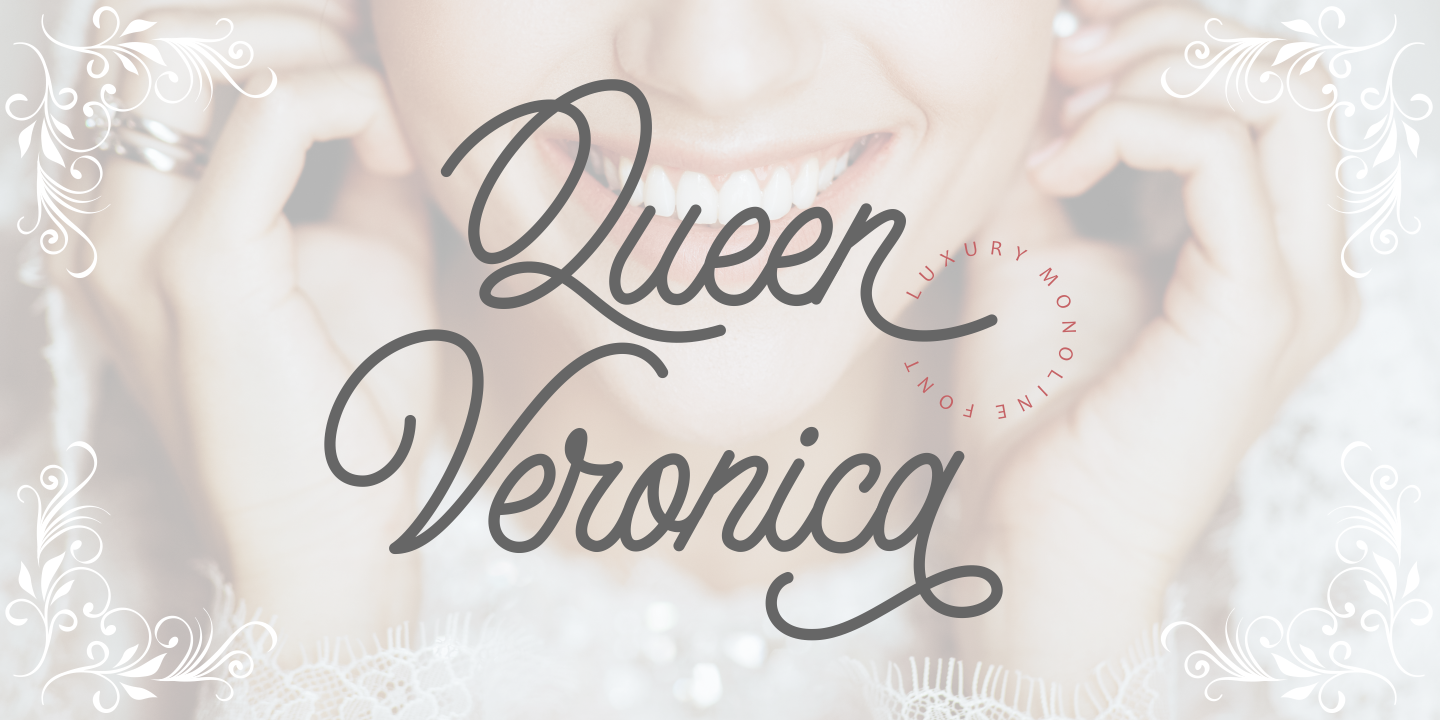
Queen Veronica Font Free Download is a graceful and elegant script typeface that exudes sophistication and charm. Please note: you must purchase a license for commercial use — this font is available as a free download strictly for personal and testing purposes.
Perfect for wedding invitations, branding, logos, social media graphics, and packaging, Queen Veronica Font Free Download adds a luxurious and personal touch to your creative projects.
What makes this font exciting is its flowing, delicate strokes and refined curves that mimic beautiful handwriting, bringing warmth and elegance to any design.
The Queen Veronica font family includes Regular and Bold styles, giving designers versatile options for expressive and stylish typography.
If you want to infuse your projects with feminine grace and timeless beauty, Queen Veronica Font Free Download is an excellent choice. Download it today, explore its elegant charm, and elevate your designs with confidence and flair.